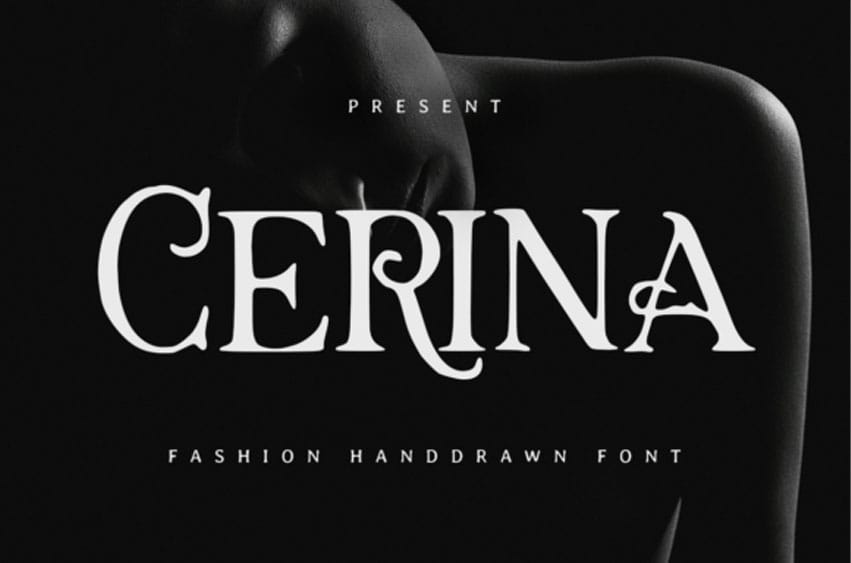
Cerina Font is a fashion hand-drawn font with elegant, feminine, and artistic character. Cerina is a dramatically styled fashion hand-drawn serif font that effortlessly blends classical serif structure with unique, artistic detailing for a high-impact, luxury aesthetic.
This exceptional Cerina font features high-contrast strokes and exaggerated serifs, with some terminals curling into delicate, handwritten swashes that imbue it with unmistakable elegance and personal flair. Ideal for the discerning designer, this fashion hand-drawn font is the perfect choice for high-end magazine titles, exclusive cosmetics packaging, luxury brand logos, and cutting-edge fashion photography layouts. The distinctive, stylized glyphs of the Cerina typeface ensure your project conveys sophistication, artistry, and exclusivity.
Each letter is crafted with delicate detailing that delivers an exclusive and premium look—perfect for fashion branding, editorials, cosmetics, and visual projects that need a stylish and luxurious aesthetic.